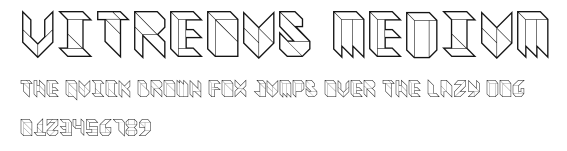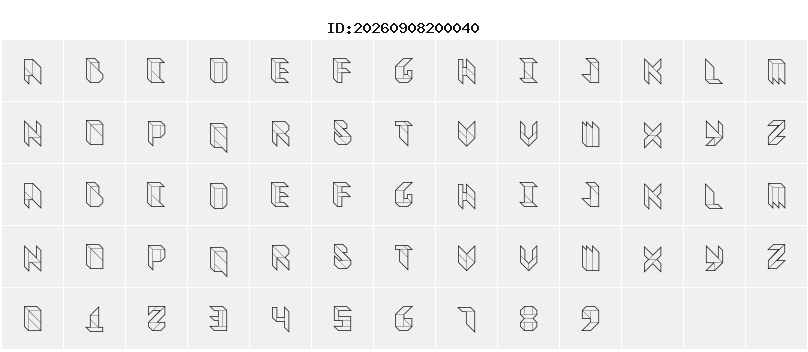
Vitreous Medium Preview
• Font Name: Vitreous Medium
• Full Font Name: Vitreous Medium
• Designer: Elliott Hefford
About Vitreous Medium.ttf
Vitreous Medium.ttf is a modern, elegant sans-serif font designed for ultimate readability and visual harmony. Perfect for branding, headlines, web design, and print materials.